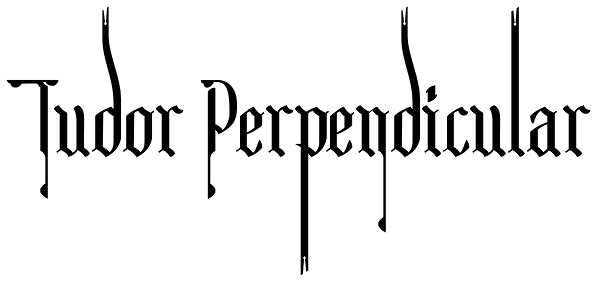
Tudor Perpendicular
Tudor Perpendicular is Greater Albion's seasonal Black letter release (not that we rule out the possibility of non-seasonal ones...) for 2012. As the name suggests, it is a design which emphasises, and yes, exaggerates for effect, the perpendicular...